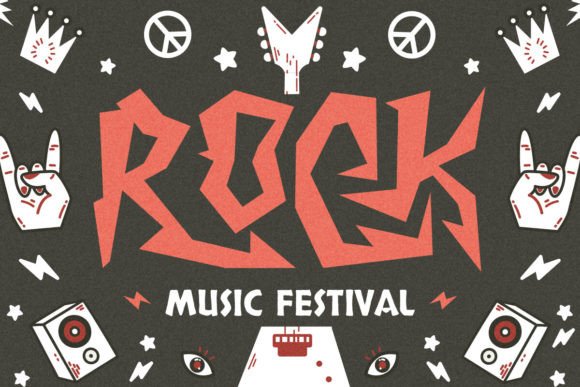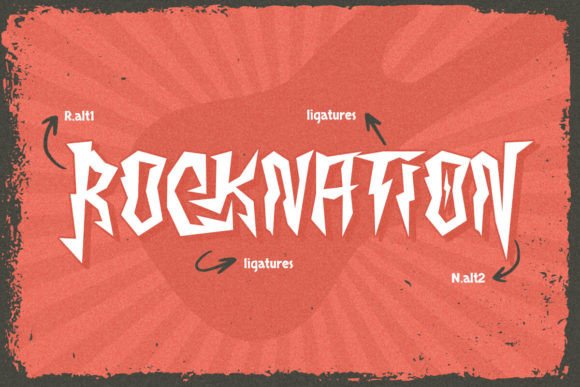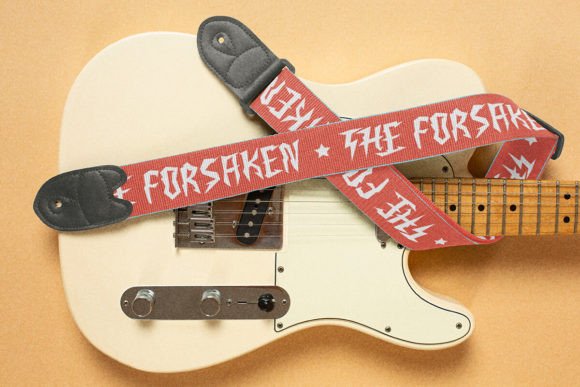
Introduction to Serpent Wrath Font
There’s nothing quite like the rush of creative momentum, when a project is flowing and your ideas are bursting forth like a pent-up storm. For designers, that feeling is what makes all the late nights and caffeine-fueled brainstorming sessions worth it. And for those who crave a little more edge in their creative projects, a new font has emerged to shake things up: the Serpent Wrath Font.
This bold display font is a game-changer for designers looking to add a little anarchy to their designs. With its hardcore black metal vibes and unique, alternate characters, the Serpent Wrath Font is the perfect tool for making a statement. Whether you’re working on event posters, labels, magazines, or brand packaging, this font is sure to bring a fierce but funky touch to your project.
Key Features of Serpent Wrath Font
- High-quality, bold font ideal for creative projects that demand attention and power.
- Features a large character set, including uppercase and lowercase letters, numbers, and punctuation marks.
- Unique, hand-drawn style that adds a touch of personality to any design, making it perfect for creative projects and branding.
Honest Review: Serpent Wrath Font
I recently had the chance to work with the Serpent Wrath Font, and I must say it’s been a game-changer for my creative projects. This font is perfect for anyone looking to add a touch of edginess to their design. The high quality of the font is immediately apparent, making it a valuable design resource.
- ✨ Unique and edgy design aesthetic
- ✨ High quality and detailed font
While the Serpent Wrath Font is an excellent addition to any designer’s toolkit, there are a few limitations to consider. The font may not be suitable for all types of projects, and it may not be compatible with all design software.
Overall, I’m thoroughly impressed with the Serpent Wrath Font. Its unique design and high quality make it a valuable resource for any designer looking to add a touch of creativity to their work.
Serpent Wrath Font
The Serpent Wrath Font is a unique and high-quality design resource perfect for creative projects. This free download offers a transparent background, making it easy to customize and integrate into various designs.
Use the Serpent Wrath Font to create eye-catching headlines, titles, or quotes in your designs. Experiment with different font sizes, colors, and arrangements to achieve a unique look.
The Serpent Wrath Font is ideal for various creative projects, including logos, brochures, posters, and social media graphics. Its unique design makes it perfect for horror, fantasy, or sci-fi themes.